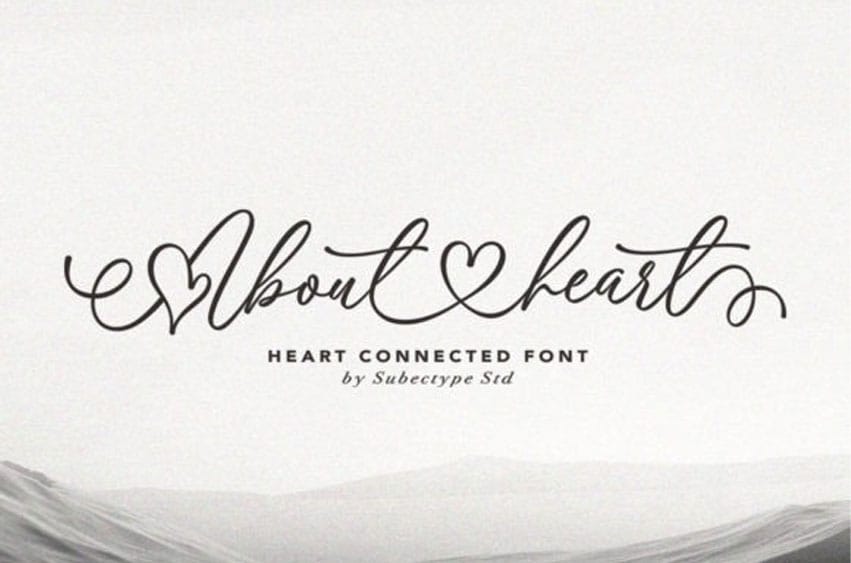
About Heart Font is a Chic calligraphy font with Heart connected style, described by a Love touch, perfect for your favorite projects.
Fall in love with its incredibly distinct and timeless style and use it to create spectacular designs!